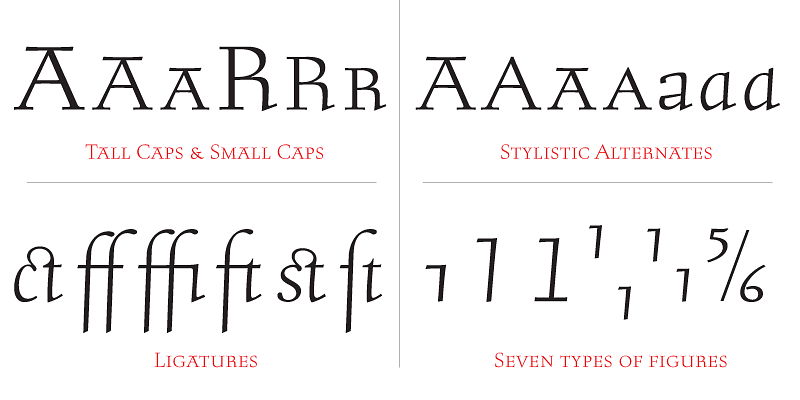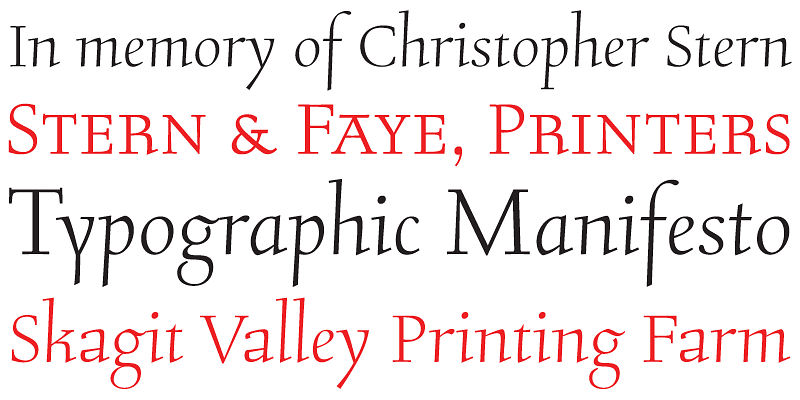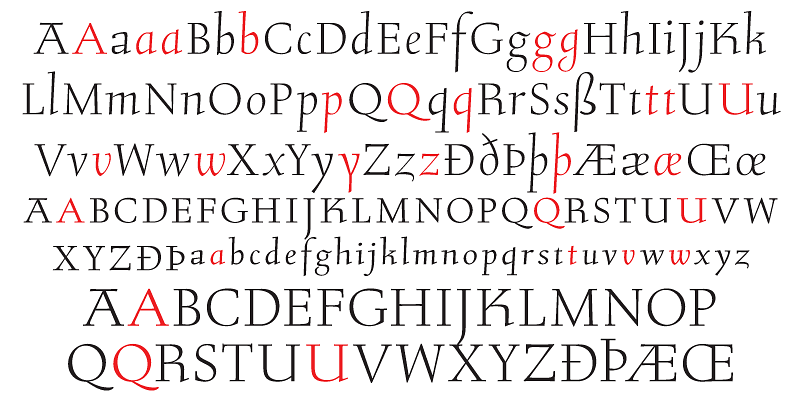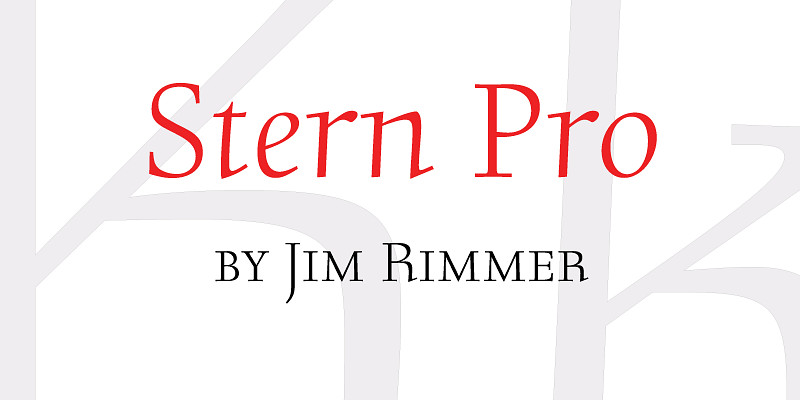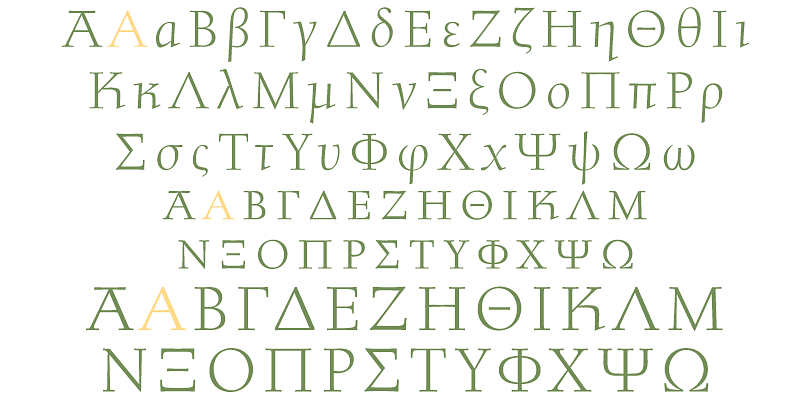
Stern Pro (2008) is the only typeface to be produced and published simultaneously in digital and metal. In the twenty-first century, no less. It is also the last typeface Jim Rimmer ever completed before his untimely passing in 2010.